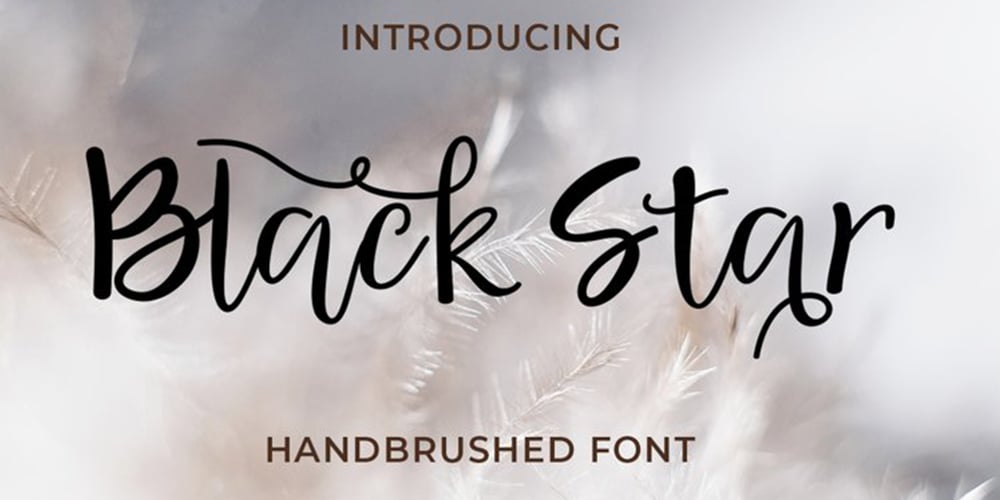
Black Star Font Family was designed by Teuku Muhammad Zaki and published by Zaki Creative. Black Star contains 1 styles and family package options. Black Strar is a modern calligraphy design, including Regular. This font is casual and beautiful with swash. Can be used for various purposes. such as logos, product packaging, wedding invitations, branding, headlines, signage, labels, signatures, book covers, posters, quotes, and more.Black Strar includes a change of the OpenType language style, binding and international support for most Western languages. To activate the OpenType Stylistic alternative, you need a program that supports OpenType features such as Adobe Illustrator CS, Adobe Indesign & CorelDraw X6-X7, Microsoft Word 2010 or newer versions.